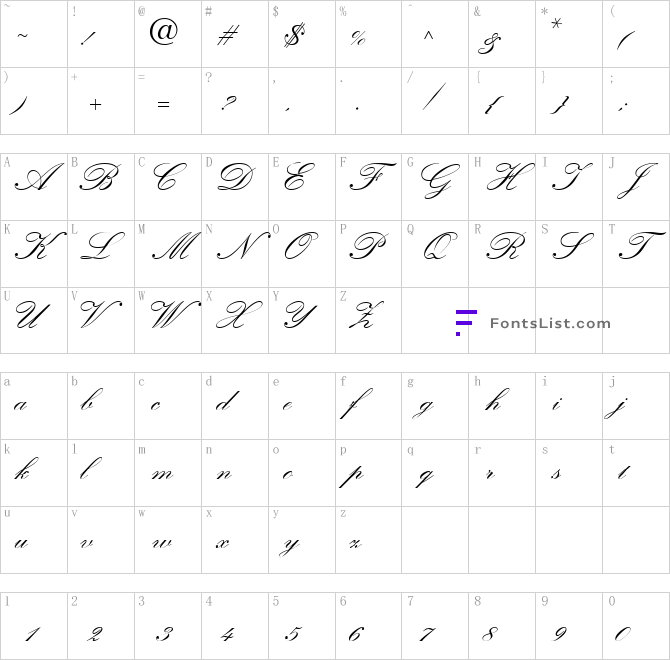
- Font Name:Amber
Amber.ttf is a very beautiful artistic font, Amber.ttf is widely used in the design and printing of various books and pictures,Amber.ttf has a strong visual impact,Amber.ttf is a commonly used font in newspapers, magazines and books, and is used in posters, e-commerce Poster design, store design, logo design, font design and other fields.Amber.